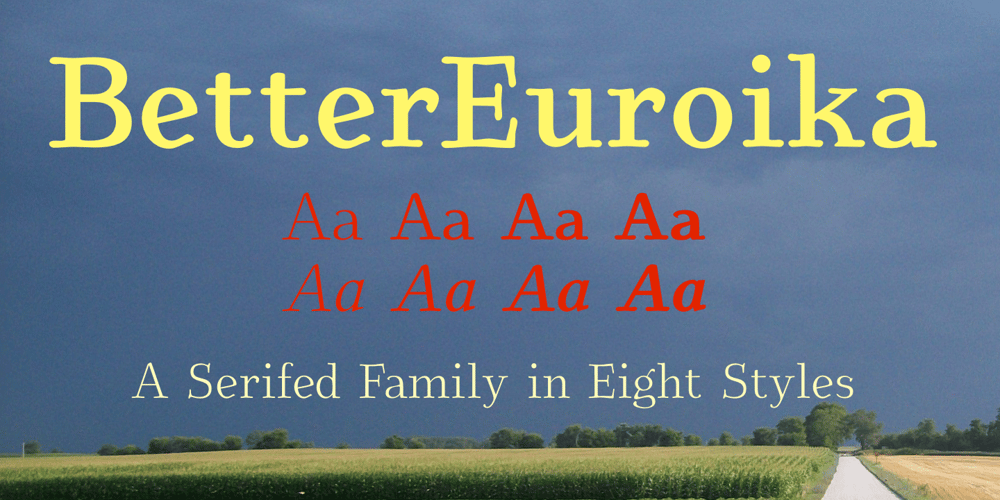
BetterEuroika Font Family was designed by Robert Schenk and published by Ingrimayne Type. BetterEuroika contains 8 styles and family package options. In the 1990s Adobe’s MultipleMaster technology introduced interpolation into font editing programs. Although the obvious use of interpolation was to create an unlimited number of weights for a font, interpolation could also be used to crossbreed two completely different typefaces. BetterEuroika is the result of such crossbreeding, the offspring of two very different parents. BetterTypeRight has little contrast and large, round serifs while Euroika is a decorative font with high contrast and thin, square serifs. BetterEuroika was constructed in 1995-6; an update in 2012 cleaned up many of the remaining oddities that resulted when parts of the parent fonts clashed. It has four weights (regular, medium, bold, italic, extra bold) and italics for all four weights yielding a family of eight style